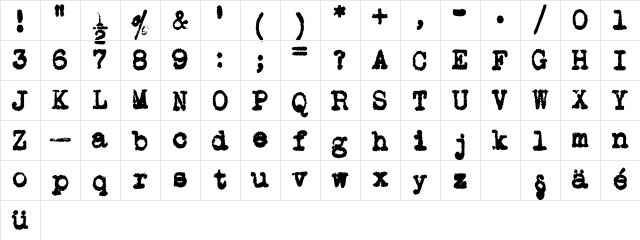
Complete L.C. Smith 5 typewriter Regular glyph index. Displaying only characters natively supported by L.C. Smith 5 typewriter Regular font.
L.C. Smith 5 typewriter uses fixed-width spacing throughout, giving it the structured, systematic character associated with coding environments and technical documentation.